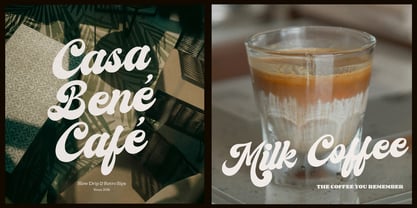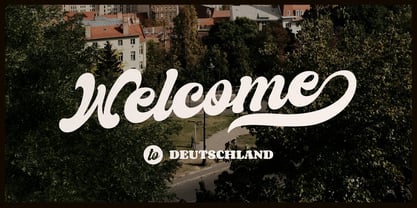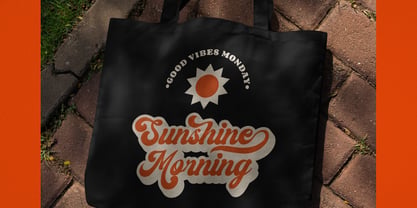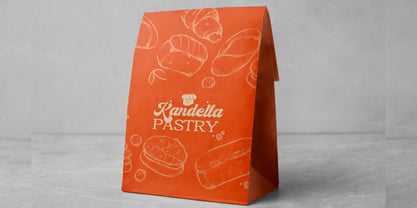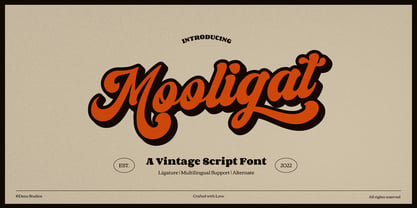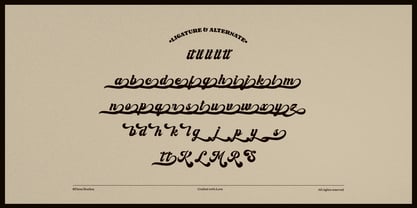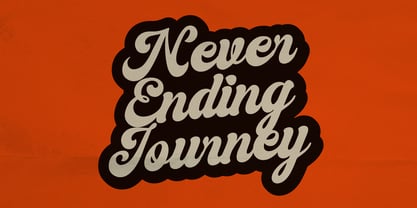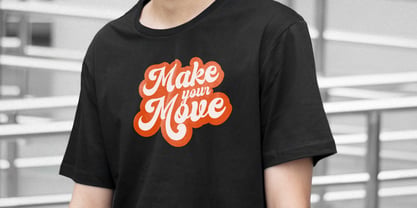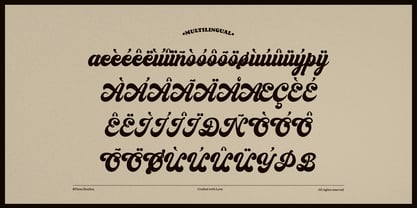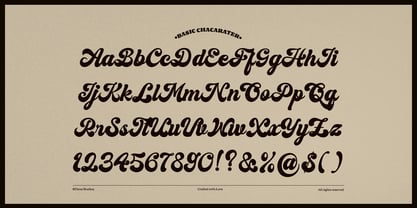
Mooligat
by Denustudio
The Mooligat Font Family was designed by Dede Nugraha and published by Denustudio. Mooligat contains 1 styles. More about this family
Mooligat | Vintage Script Font, from Denustudios, suitable for any projects such as: logos, branding projects, homeware designs, product packaging, mugs, quotes, posters, shopping bags, t-shirts, book covers, name card, invitation cards, greeting cards, label, photography, watermark, special events, and all your other lovely projects that need Vintage Script Font a taste.